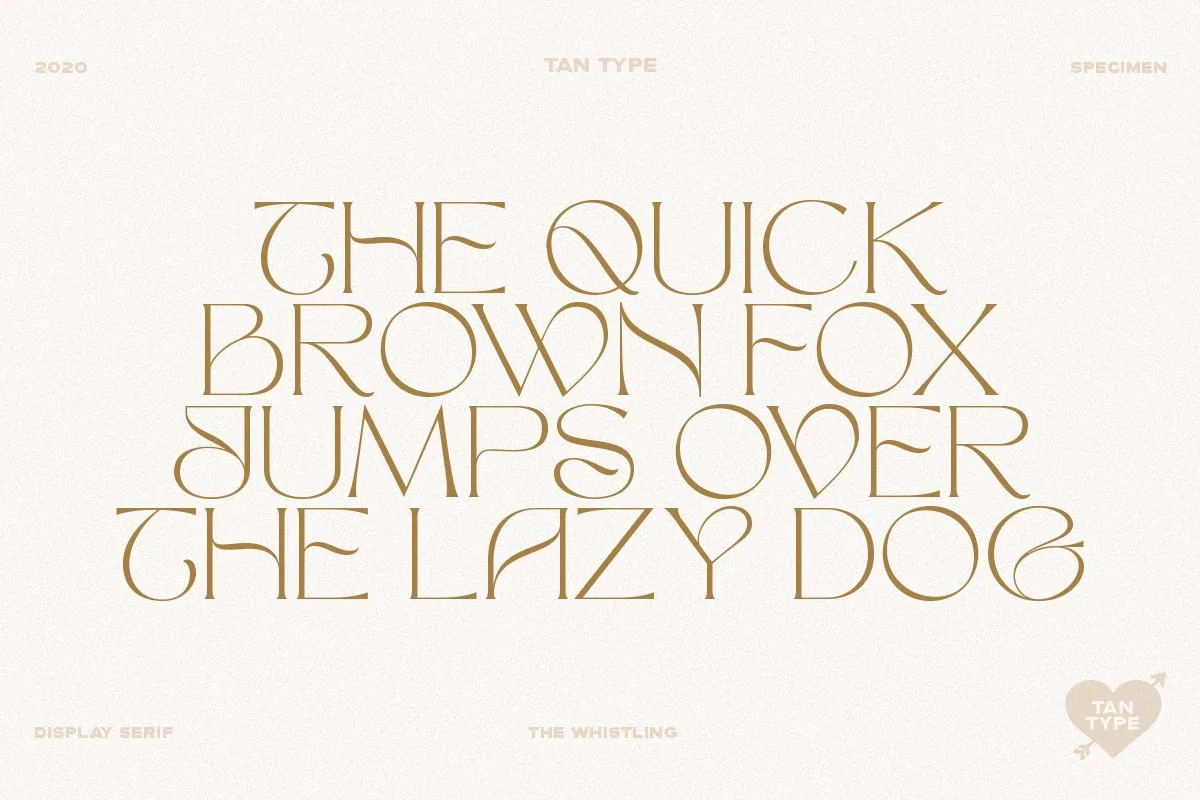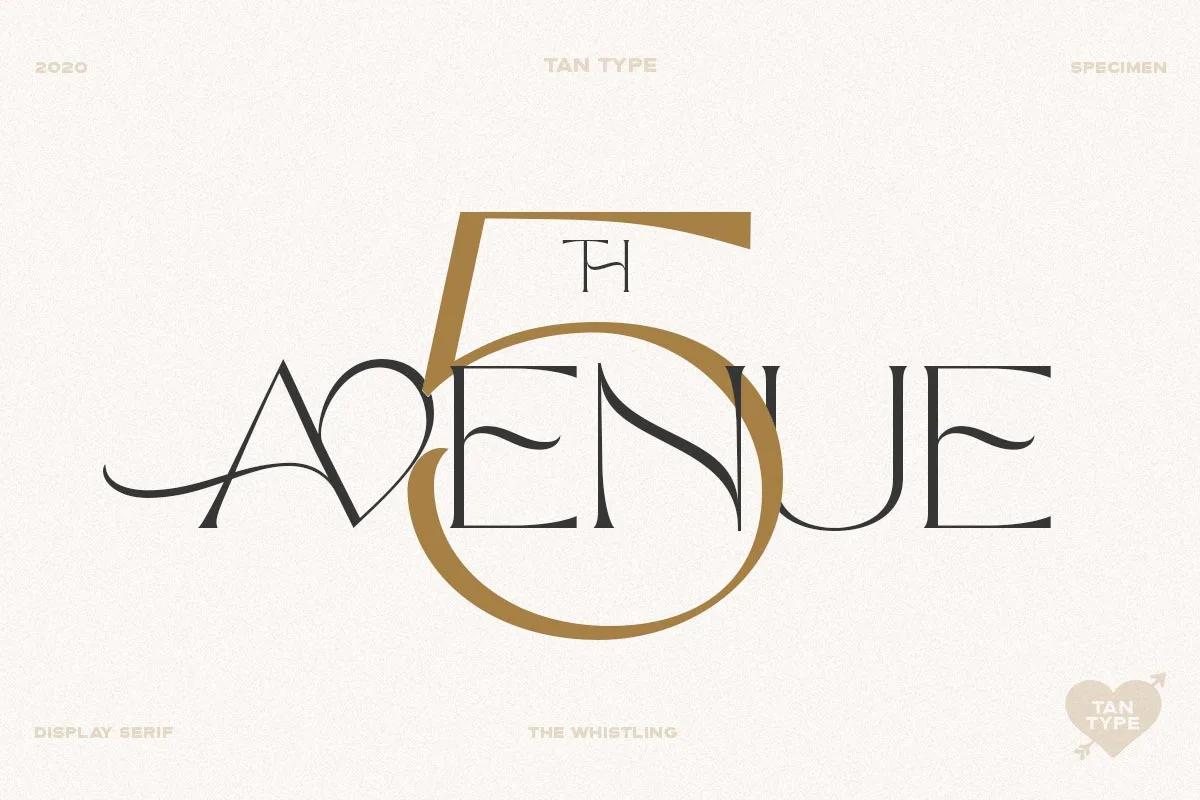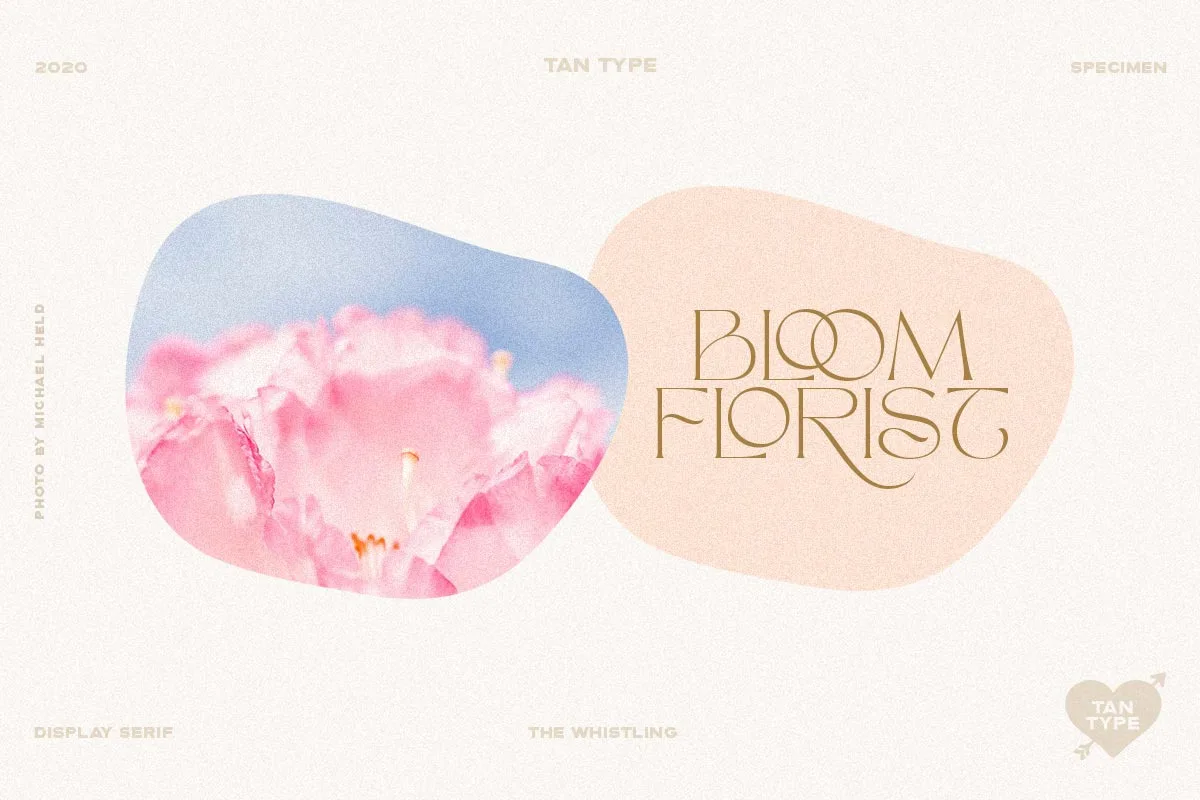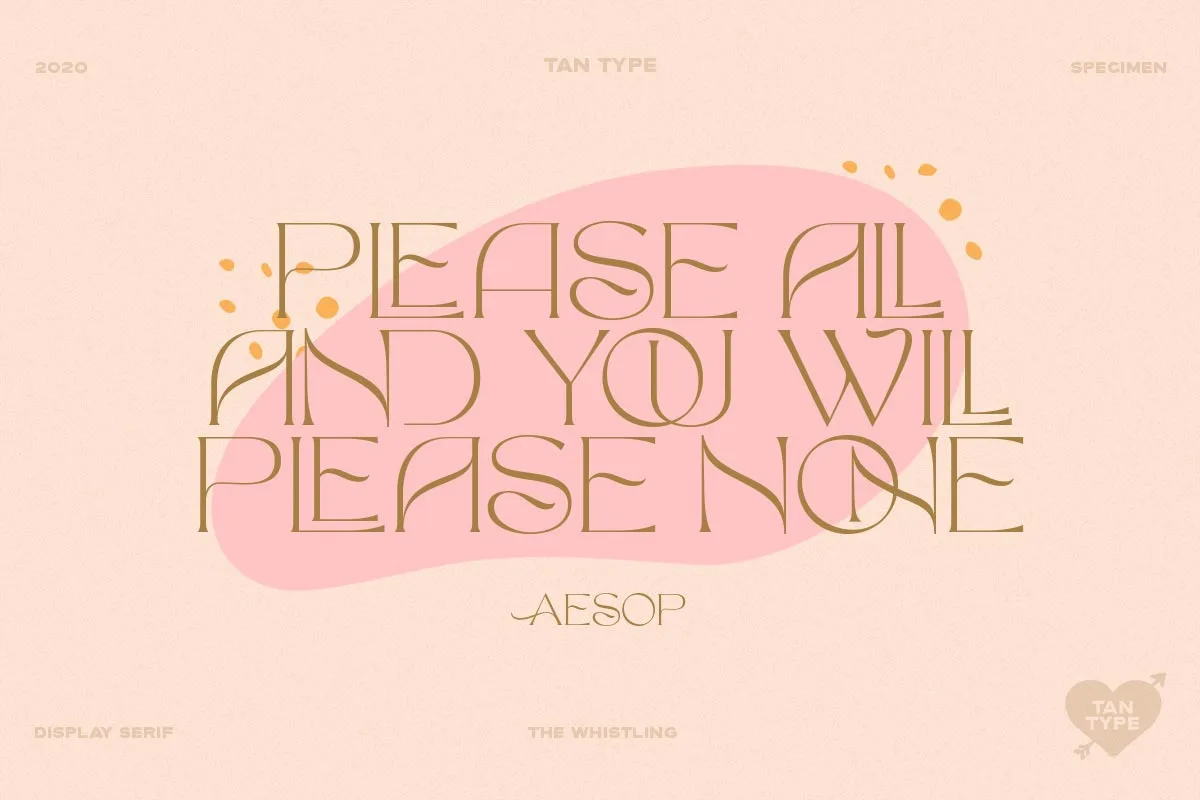
TAN – The Whistling is classy without being snobby — suitable if you want to add a bit of luxury, or even a few quirks, to your projects. It carries over 50 ligatures and even more stylistic alternates, which is where most of its character comes from. The font is by TanType, and its full name on Creative Market is TAN – The Whistling; it is very often written and searched for simply as Tan Whistling, so both names refer to the same typeface.